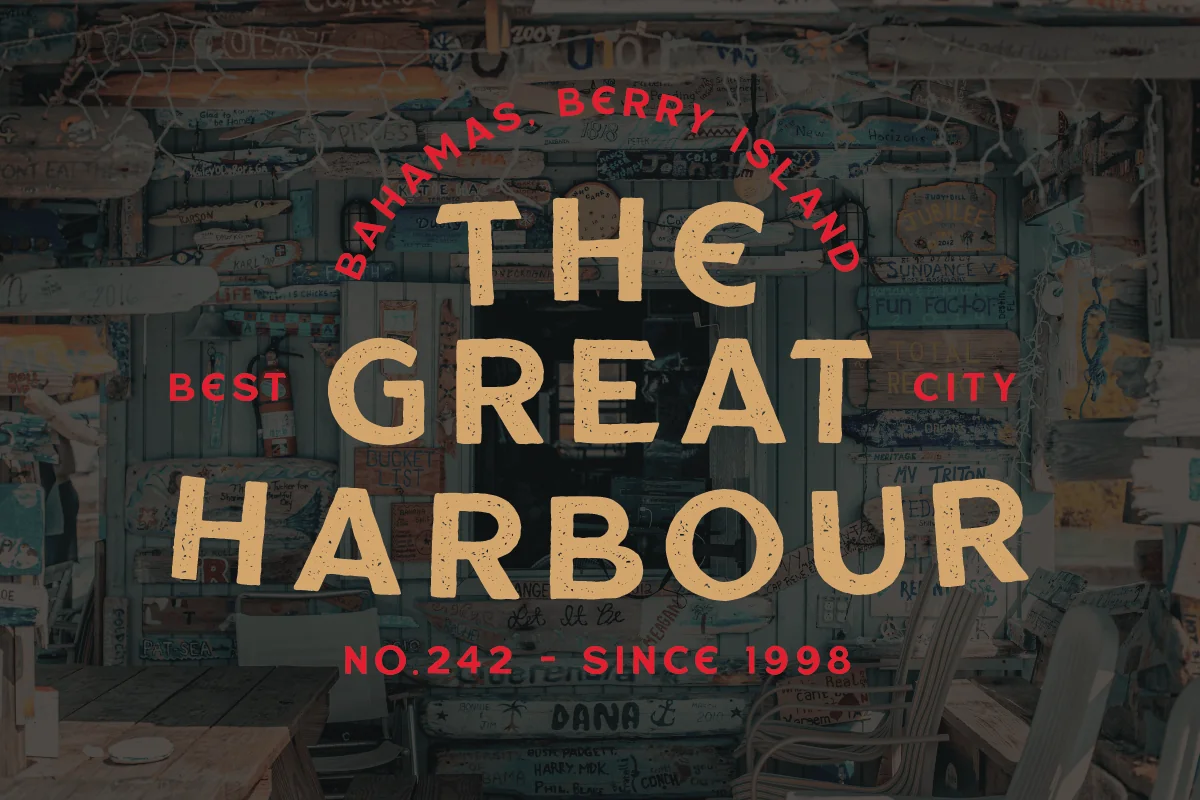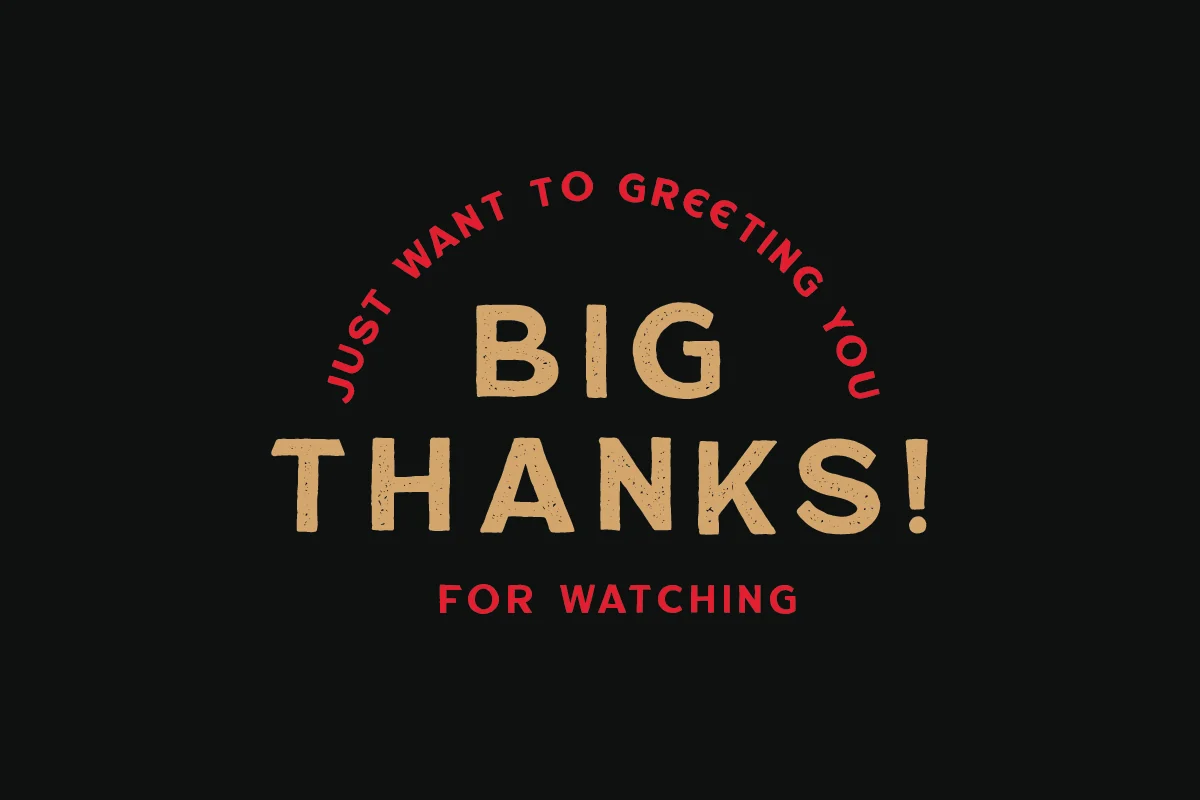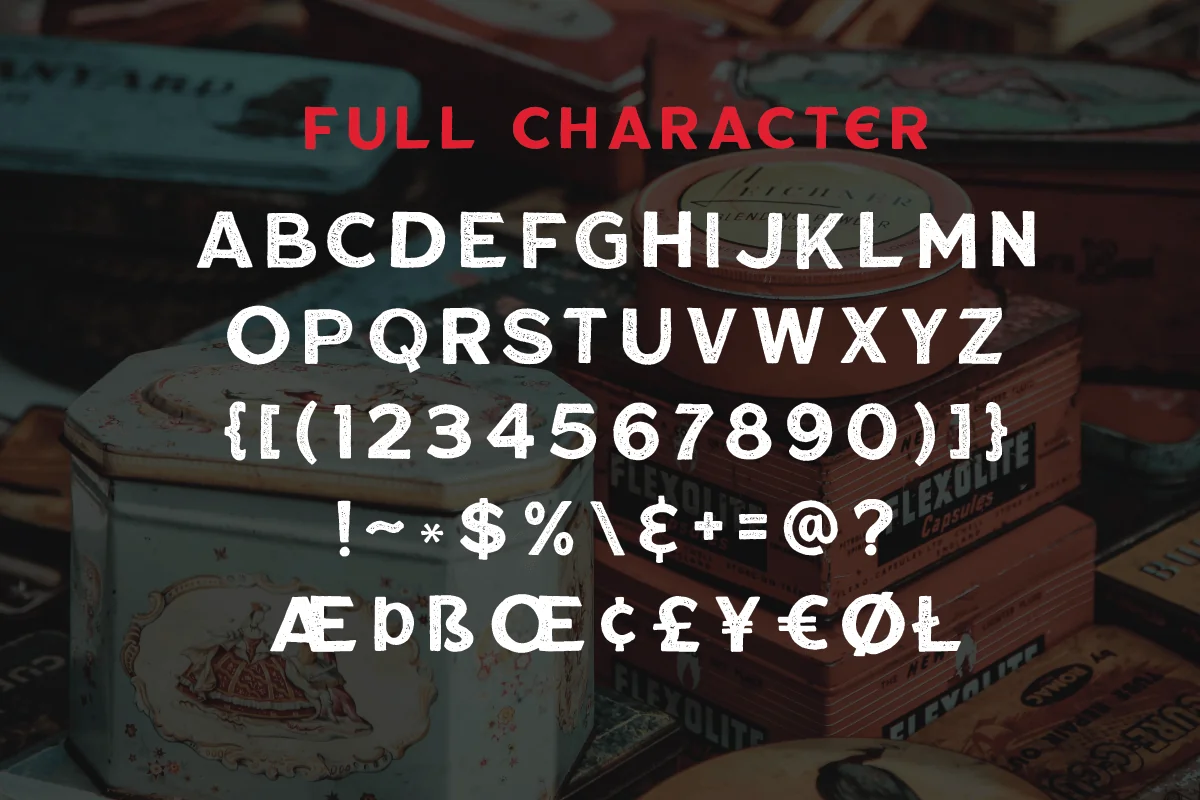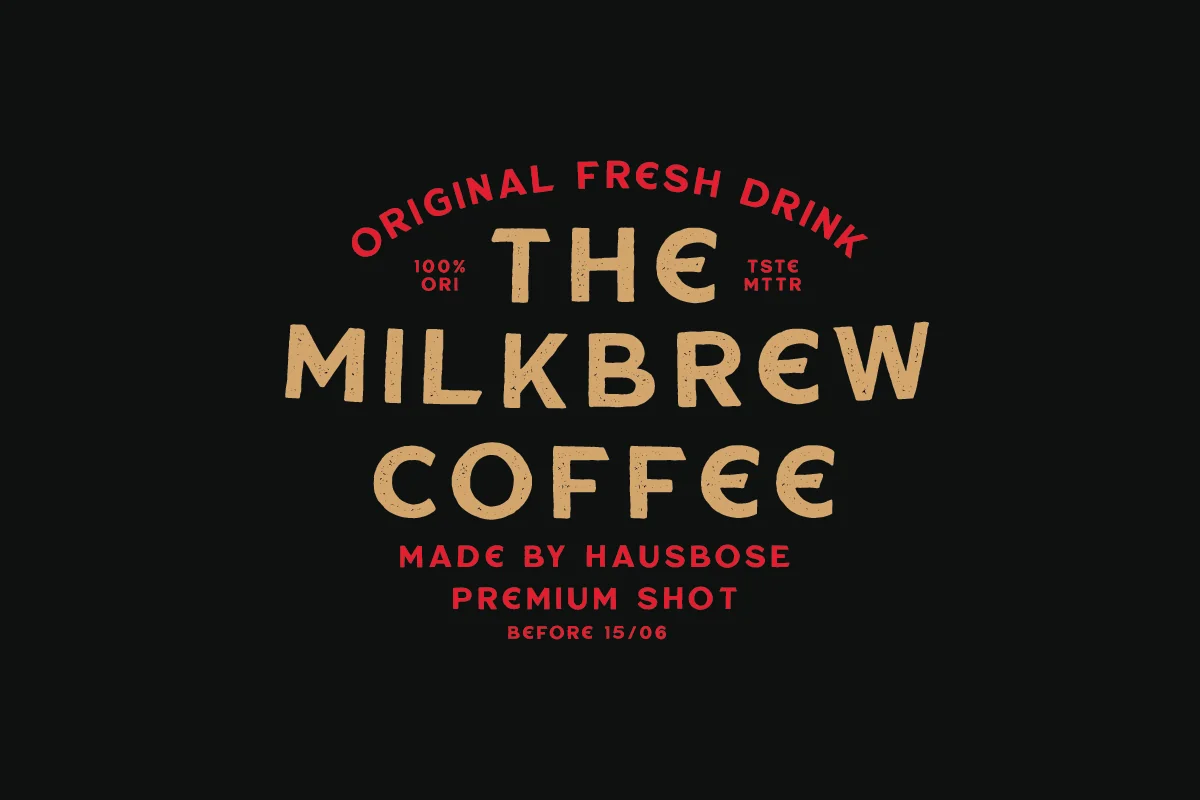
Brewisten Stamp Typeface
BREWISTEN SANS is a family sans serif font designed with carefully handcrafted. Also suitable for branding, T-shirt, Wedding Invitation, Classic Design, Logotype, and any project. With two style make you easier to design everythings.
- Brewisten Stamp
Multilingual Support support many different languages 20+ .